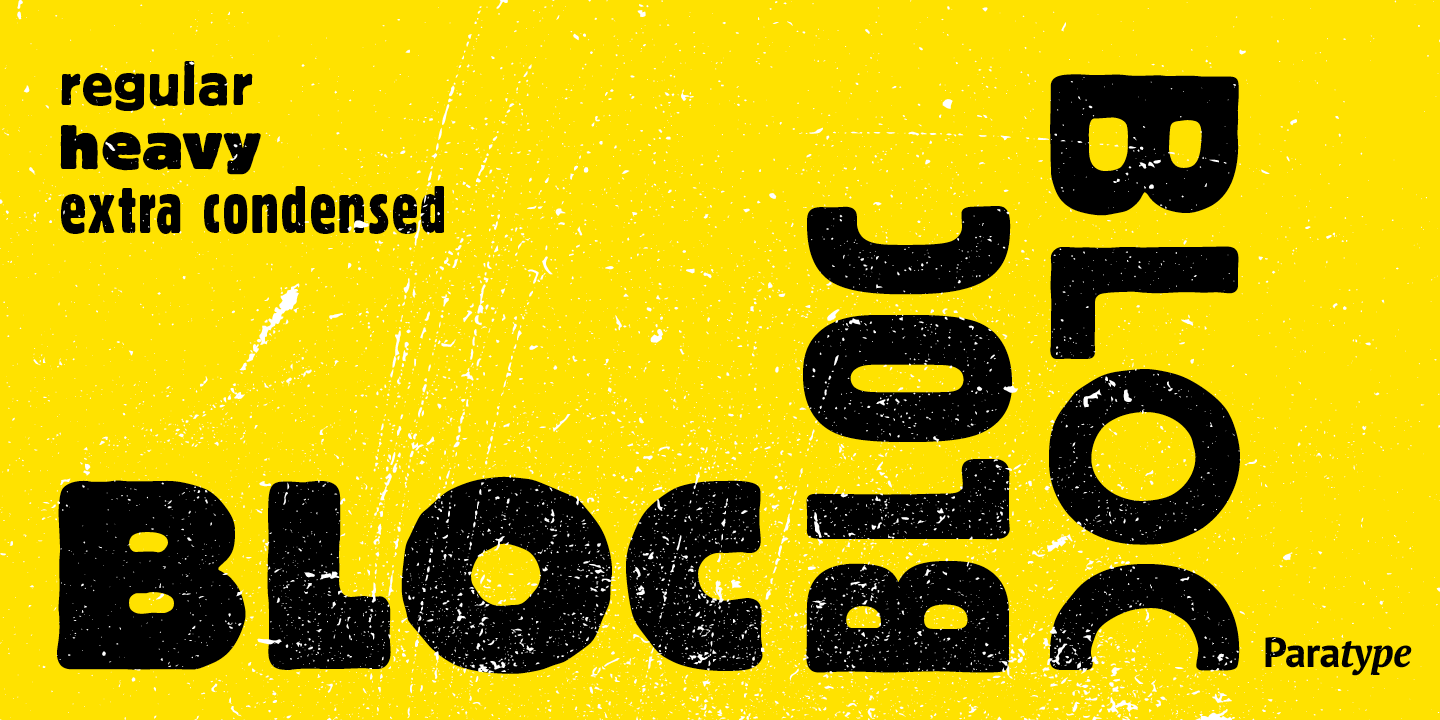
Bloc Free Download
Bloc Font Free Download is a bold and geometric sans-serif typeface perfect for headlines, branding, packaging, posters, and digital media. Its strong, blocky letterforms create a commanding presence that demands attention.
What makes this font so exciting is its modern and minimalist design combined with powerful readability, making it ideal for projects that need a striking visual impact. Bloc Font delivers both style and clarity effortlessly.
Bloc Font includes multiple weights such as Regular, Bold, and Extra Bold, offering designers versatile options to build dynamic typographic hierarchies.
Make your designs stand out with the confident and contemporary look of Bloc Font Free Download, and communicate your message with boldness and clarity.